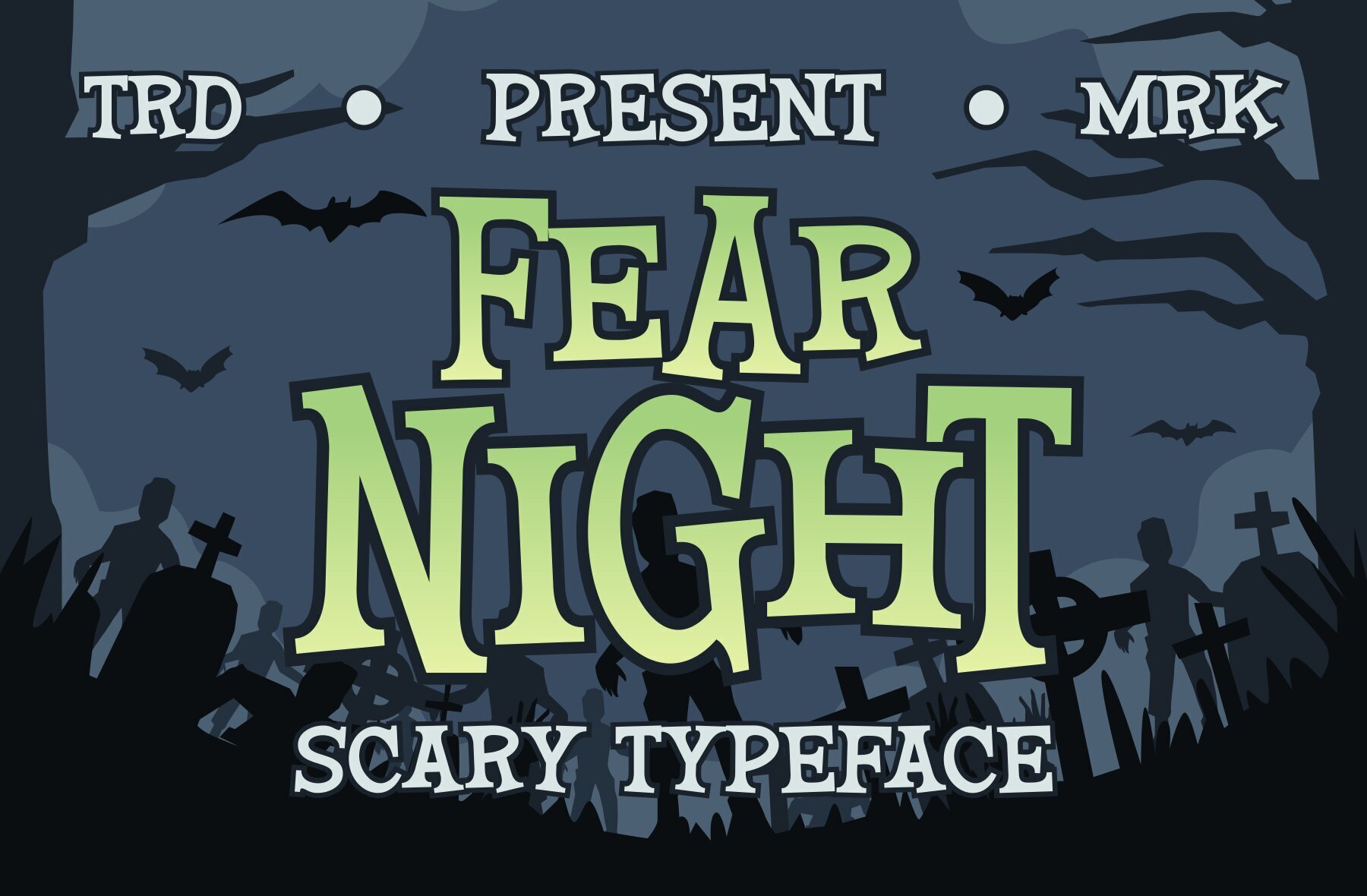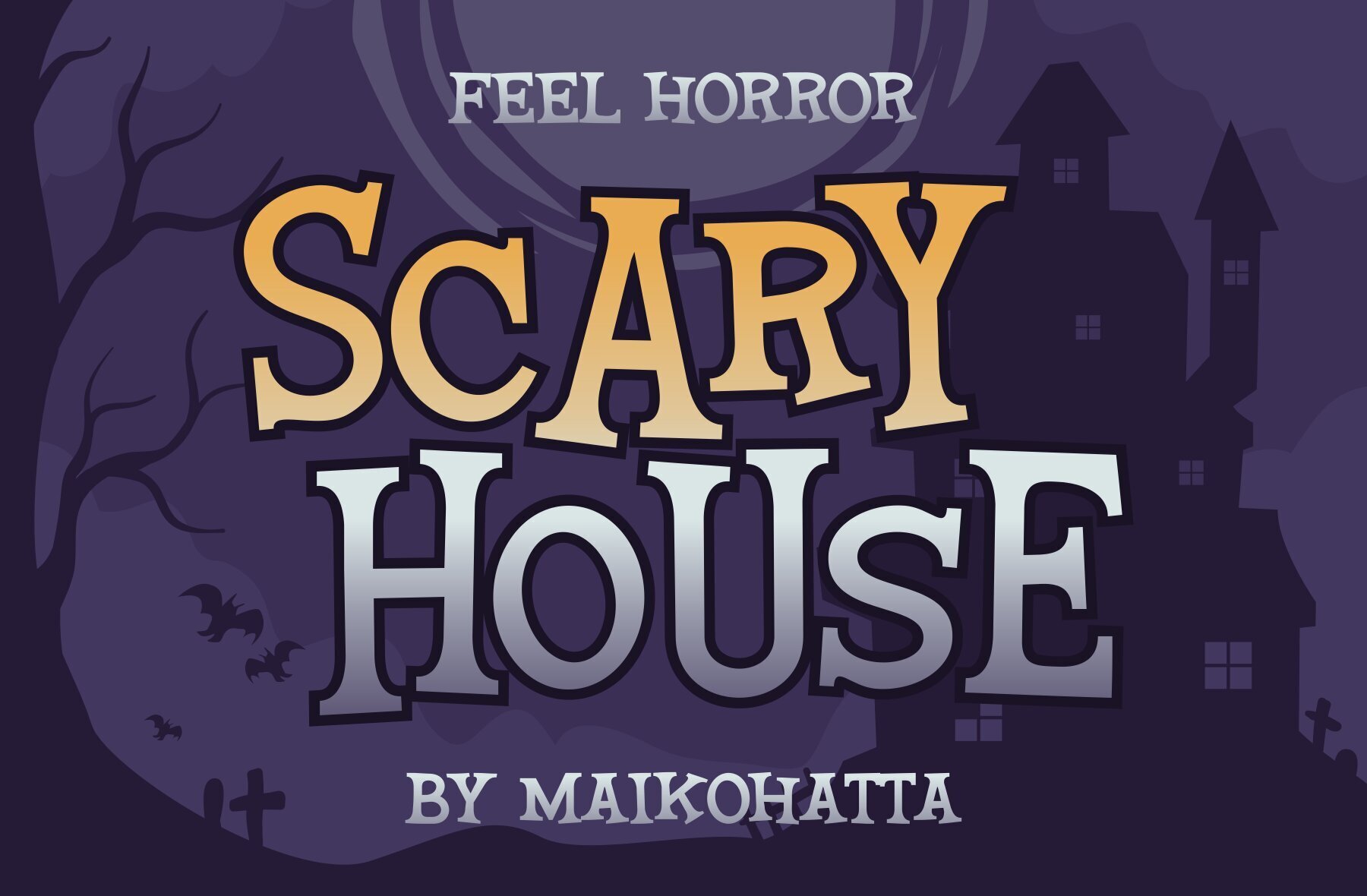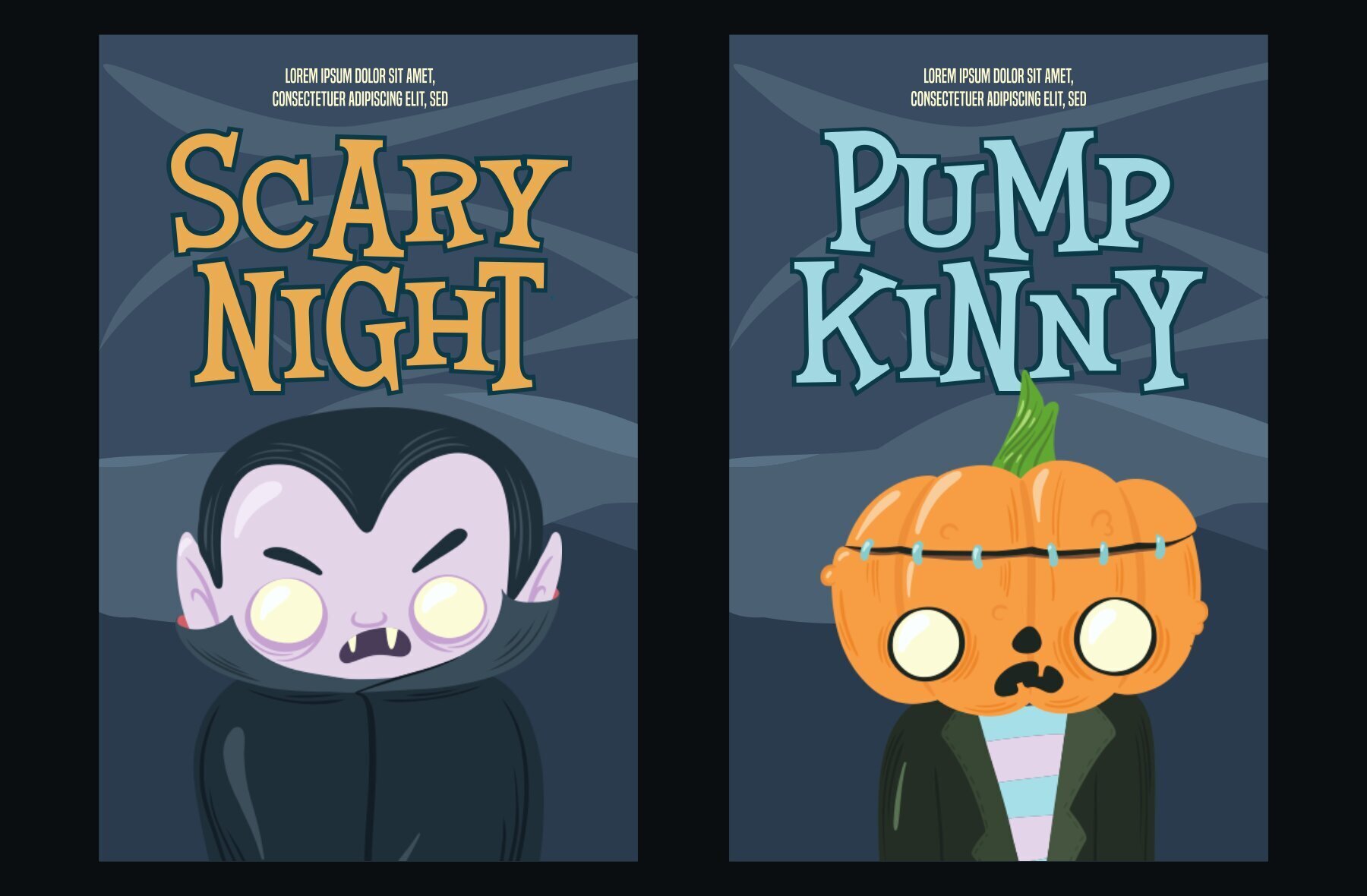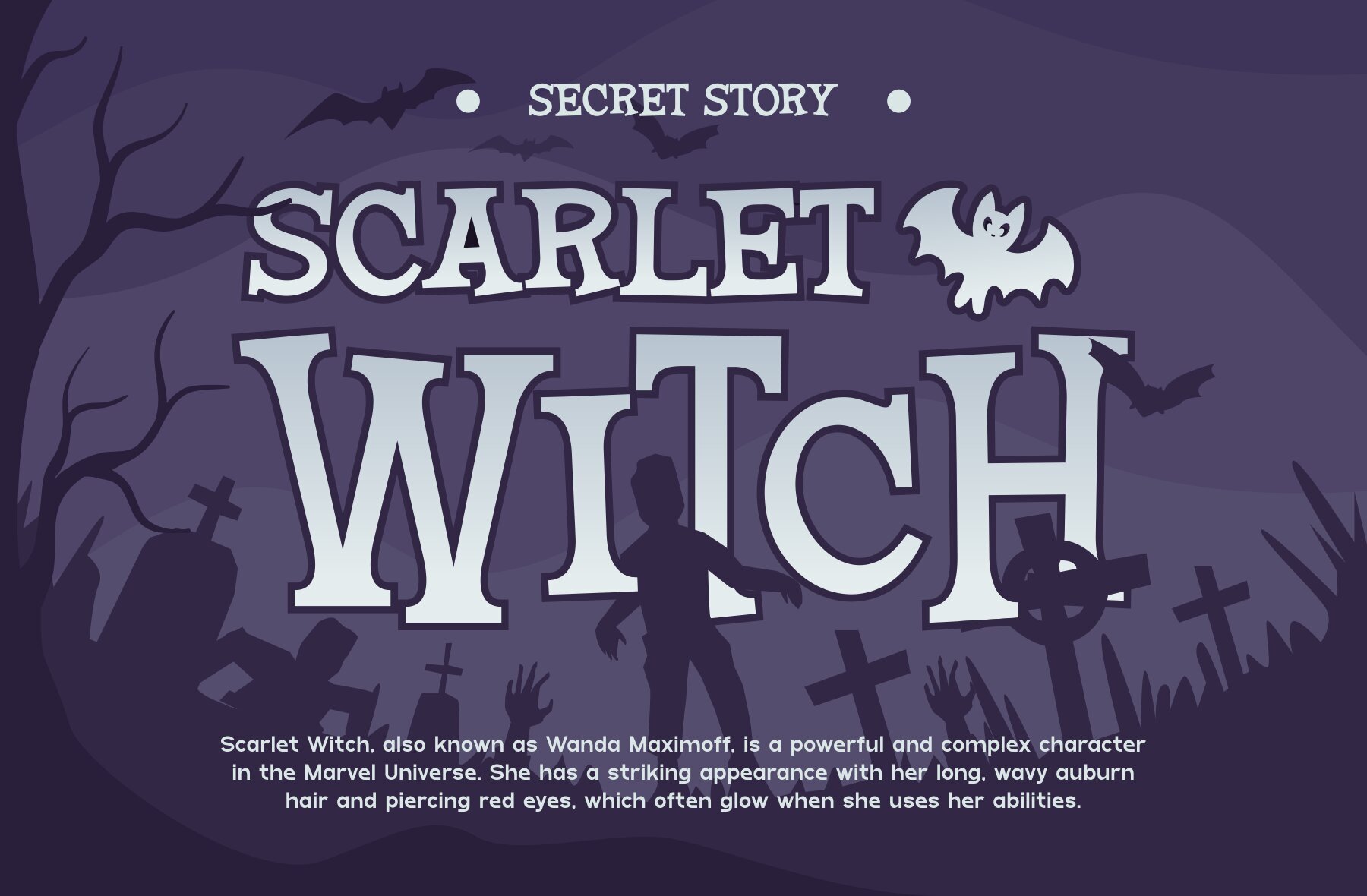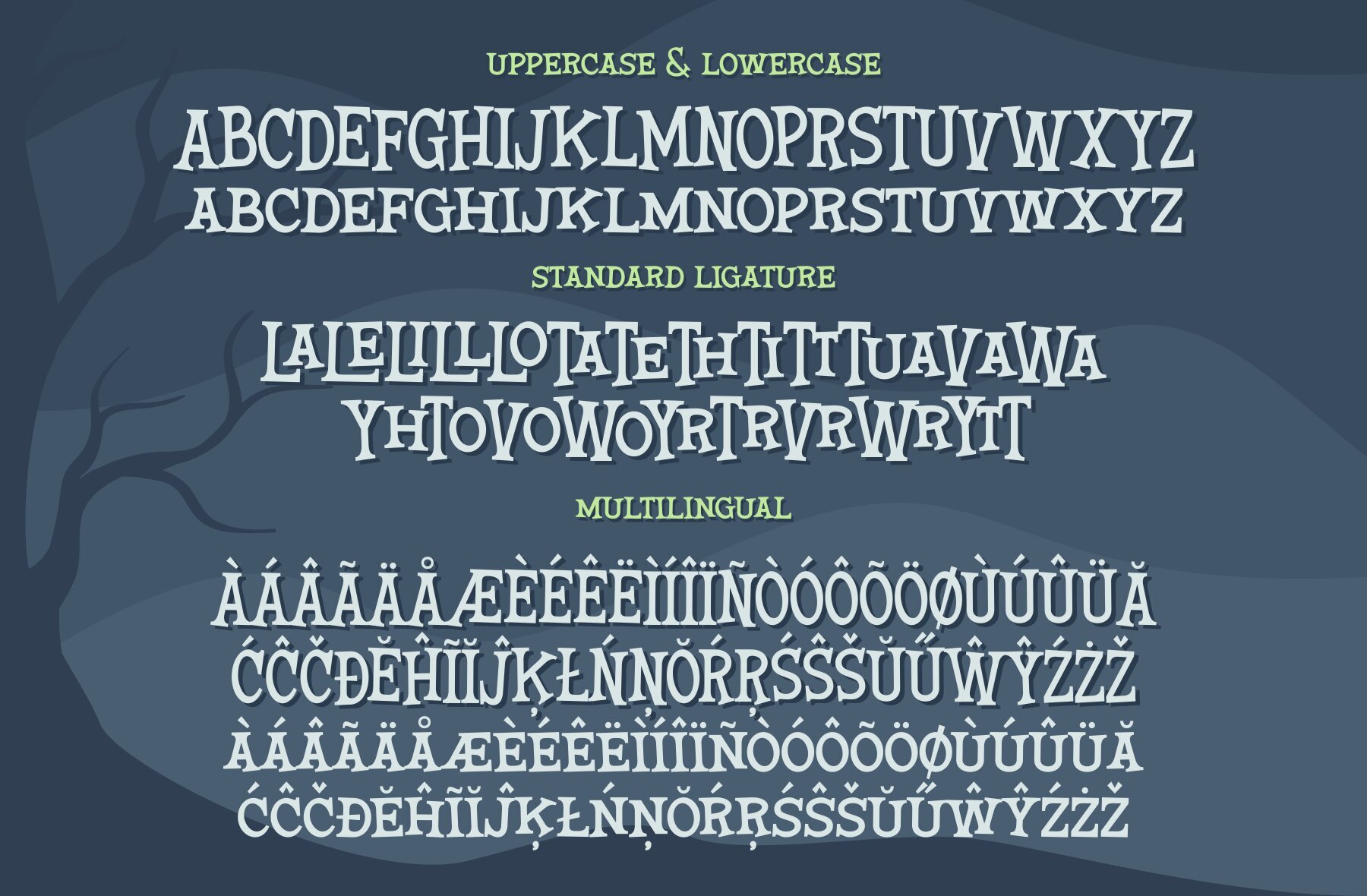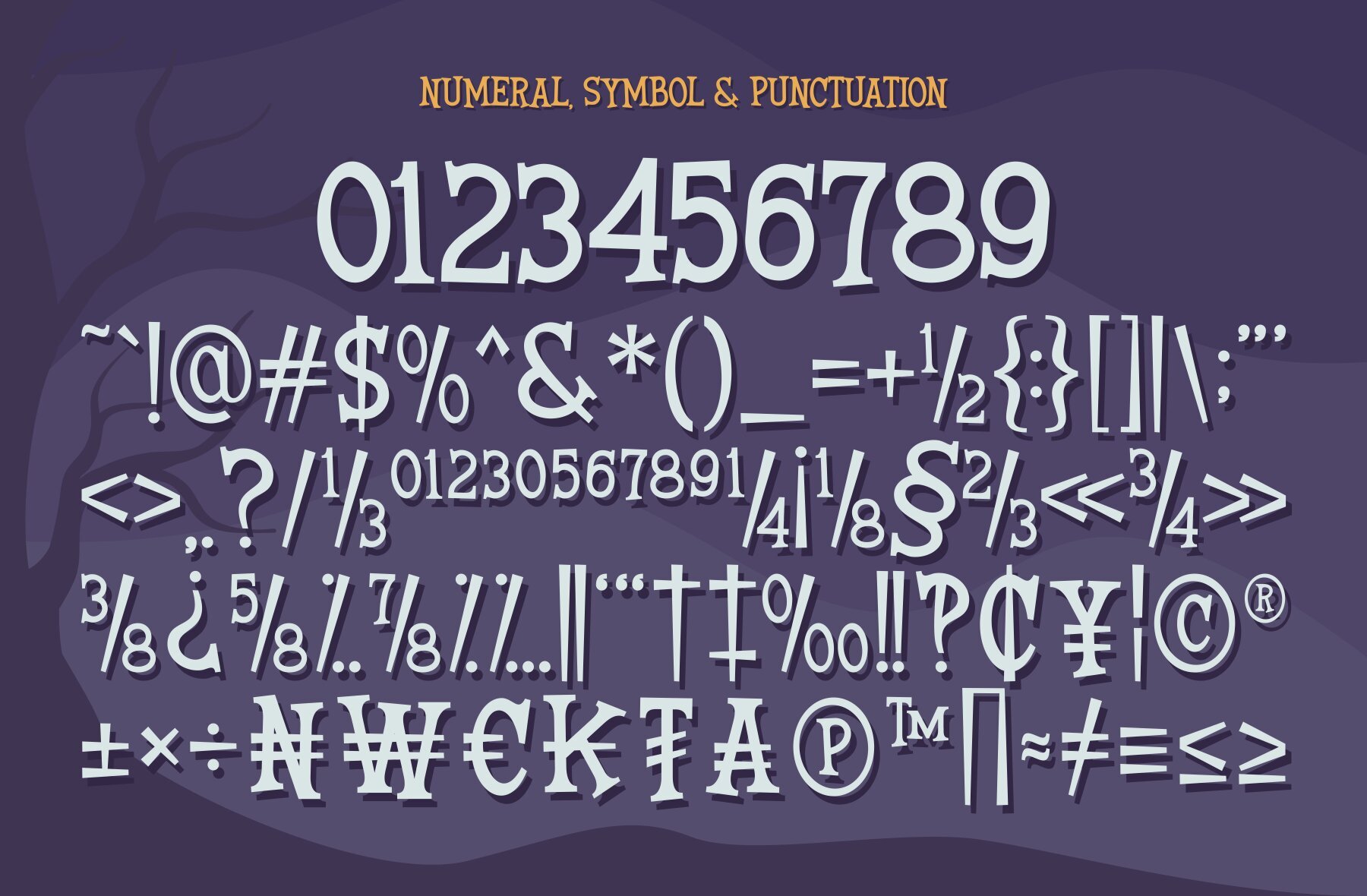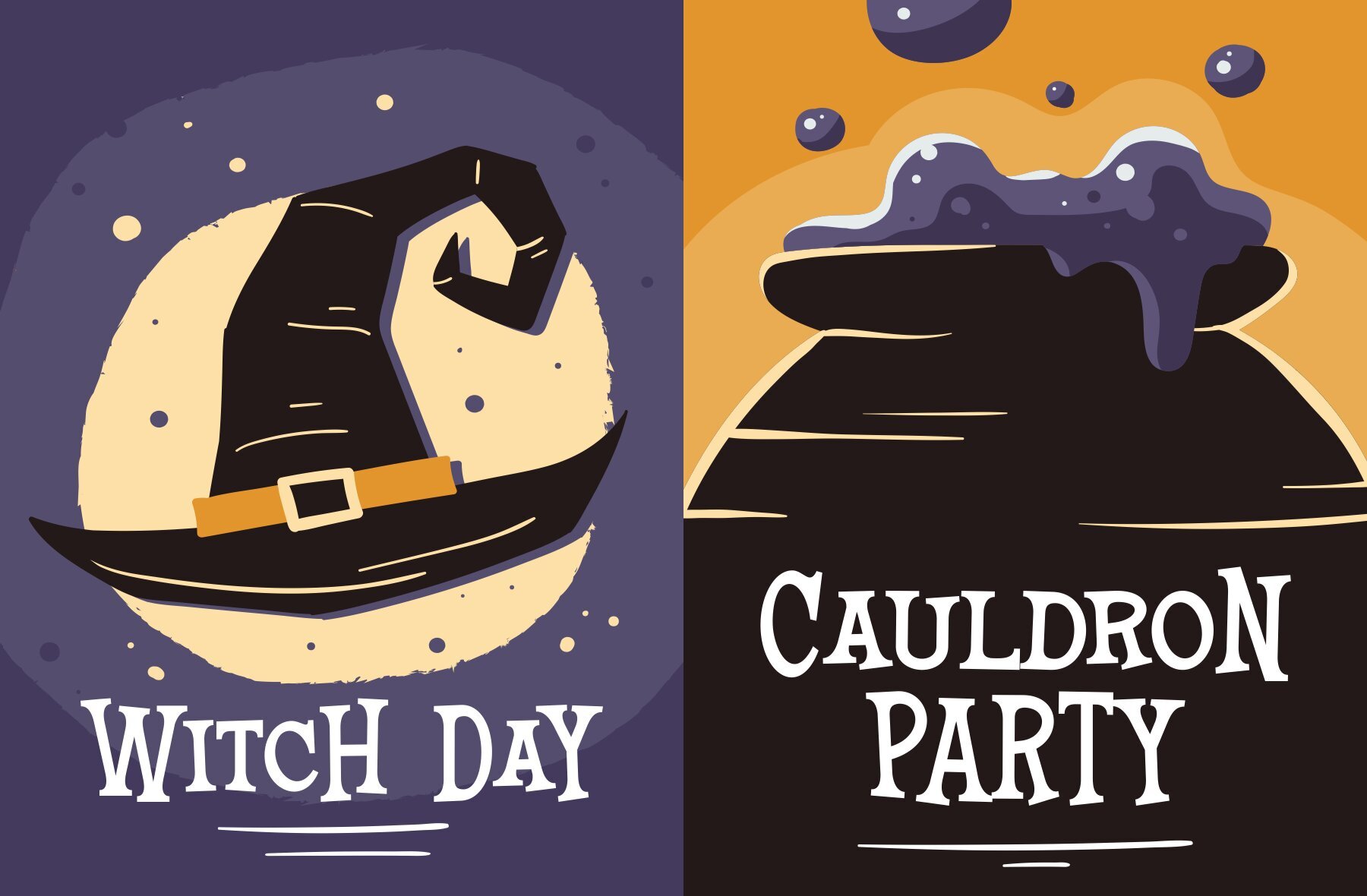
Fear Night Font
Fear Night
Introducing Fear Night, a scary typeface specifically crafted to evoke a spooky and mysterious atmosphere perfect for Halloween celebrations. Ideal for creating chilling party invitations, eerie posters, haunting merchandise designs, spooky greeting cards, and cautionary warning signs, this font adds a festive touch to any Halloween-themed project.
Fear Night comes with an array of features, including uppercase and lowercase characters, multilingual support, and unique ligatures, making it versatile for various design needs. Its distinct design captures the essence of Halloween, ensuring your creations stand out with a ghostly charm. Add a touch of fear and fun to your projects with Fear Night, the ultimate Halloween typeface.